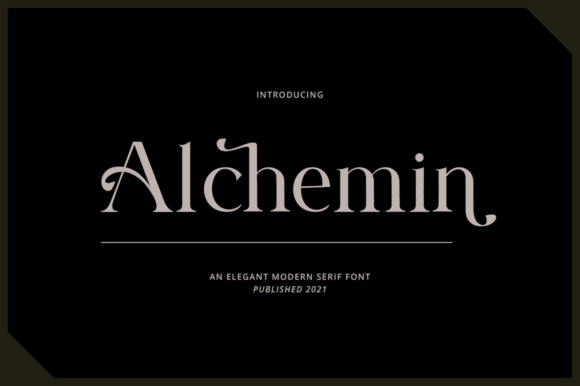
Discover the Magic of Alchemin Font
You’ve spent hours pouring over your latest design project, pouring your heart and soul into every detail. But there’s something missing – a touch of elegance, a dash of sophistication. That’s where the Alchemin Font comes in, ready to elevate your creations to new heights.
This beautiful serif font is more than just a pretty face – it’s a versatile tool that can add depth and character to any project. With its authentic feel and PUA encoding, you’ll have access to all the glyphs and swashes you need to bring your vision to life. Whether you’re working on a book cover, a logo, or a website, the Alchemin Font is sure to be an incredible asset to your font library.
- Unique Characteristics: This font features a unique blend of medieval and mystical elements, with intricate details and ornaments that set it apart from other fonts.
Designer Review: Alchemin Font
Alchemin Font is an interesting addition to the font library, and I’m excited to share my thoughts on it. Overall, I think it has some great qualities that make it a good choice for certain projects.
- ✨ Unique and distinctive style: Alchemin Font has a very distinct look that sets it apart from other fonts. It’s perfect for adding a touch of whimsy and personality to a project.
- ✨ Versatile: While it’s definitely a bold font, it can be used in a variety of contexts, from titles and headings to body text.
- ✨ Good legibility: Despite its bold appearance, Alchemin Font is still easy to read, even at smaller sizes.
- ⚠️ Limited flexibility: While Alchemin Font is versatile, it’s not the best choice for long blocks of text. Its boldness can be overwhelming, and it’s not the most comfortable to read in large quantities.
- ⚠️ Not suitable for small text: Due to its bold style, Alchemin Font doesn’t work well at very small sizes. It’s best to use it at larger sizes to get the full effect.
Overall, I think Alchemin Font is a great addition to any designer’s library. While it has some limitations, its unique style and versatility make it a great choice for adding a touch of personality to a project. Just be mindful of its limitations, and use it in the right context to get the best results.
To get the most out of the Alchemin font, use it in combination with other design elements, such as images and shapes. The font is particularly well-suited for use in fantasy and sci-fi designs, as well as for creating a vintage or distressed look.
Some common use cases for the Alchemin font include:
- Designing fantasy and sci-fi graphics
- Creating vintage or distressed text effects